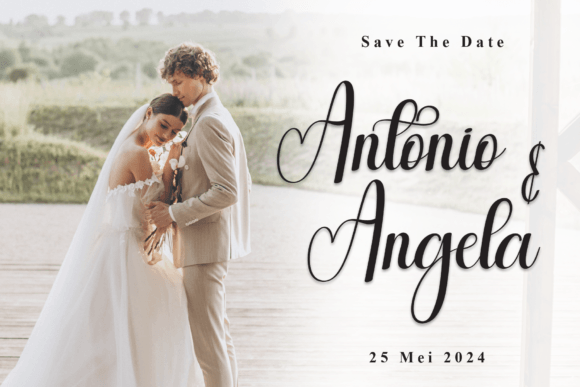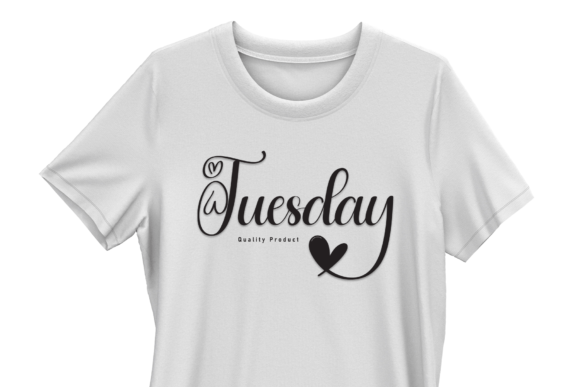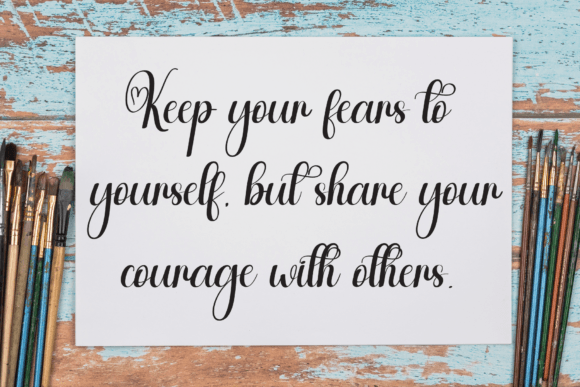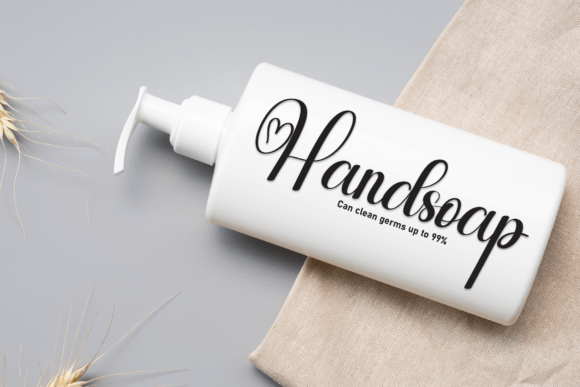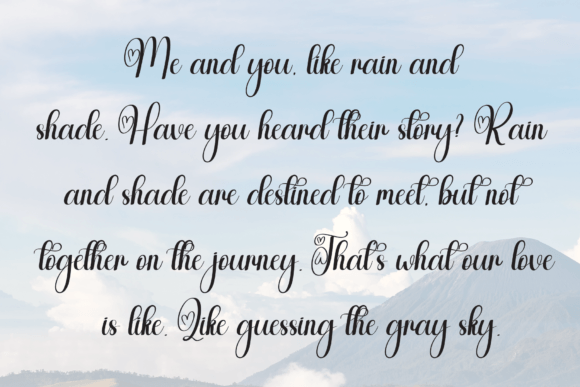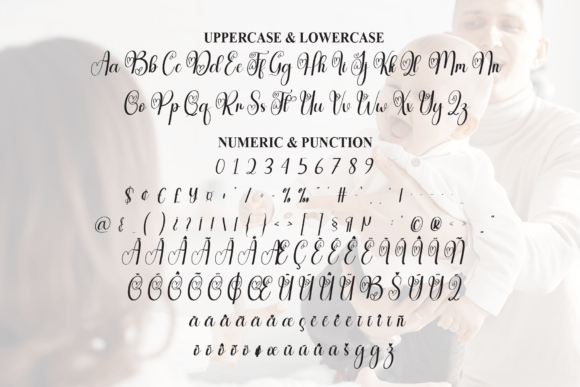
Baby Family Font: The Sweetest Handwritten Display Font for Your Designs
Are you looking for a font that can add a touch of sweetness and friendliness to your designs? Look no further than the Baby Family font! This adorable handwritten display font is perfect for creating fun and playful designs that will capture the hearts of your audience. In this article, we’ll explore the features and benefits of the Baby Family font, and how you can use it to take your designs to the next level.
What is Baby Family Font?
Baby Family font is a sweet and friendly handwritten display font that is designed to bring a touch of whimsy and fun to your designs. With its cute and playful style, this font is ideal for writing wedding invitations, cards, or any other design that might need a fun touch. Whether you’re a designer, crafter, or DIY enthusiast, the Baby Family font is a great addition to your font collection.
Features of Baby Family Font
The Baby Family font has several features that make it a great choice for designers and crafters. Some of its key features include:
- Handwritten style: The Baby Family font has a beautiful handwritten style that gives it a personal and unique touch.
- Cute and playful: This font is designed to be fun and playful, making it perfect for designs that need a touch of whimsy.
- Display font: The Baby Family font is a display font, which means it’s designed to be used at larger sizes, making it perfect for headings and titles.
- Multilingual support: This font supports multiple languages, making it a great choice for designers who work with international clients.
Benefits of Using Baby Family Font
There are many benefits to using the Baby Family font in your designs. Some of the benefits include:
- Adds a personal touch: The handwritten style of the Baby Family font gives your designs a personal and unique touch.
- Perfect for wedding and party designs: This font is ideal for designing wedding invitations, party cards, and other celebratory designs.
- Easy to read: Despite its playful style, the Baby Family font is easy to read, making it perfect for designs that need to be both fun and functional.
- Versatile: This font can be used for a wide range of designs, from digital designs to print designs.
How to Use Baby Family Font in Your Designs
Using the Baby Family font in your designs is easy! Here are a few tips to get you started:
- Pair it with a simple font: Pair the Baby Family font with a simple font to create a beautiful contrast in your designs.
- Use it for headings and titles: This font is perfect for headings and titles, so use it to add a touch of whimsy to your designs.
- Experiment with colors: The Baby Family font looks great in a variety of colors, so don’t be afraid to experiment and find the perfect color for your design.
The Baby Family font is a sweet and friendly handwritten display font that is perfect for adding a touch of whimsy and fun to your designs. With its cute and playful style, this font is ideal for designing wedding invitations, cards, and other celebratory designs. Whether you’re a designer, crafter, or DIY enthusiast, the Baby Family font is a great addition to your font collection. So why not give it a try and see how it can take your designs to the next level?